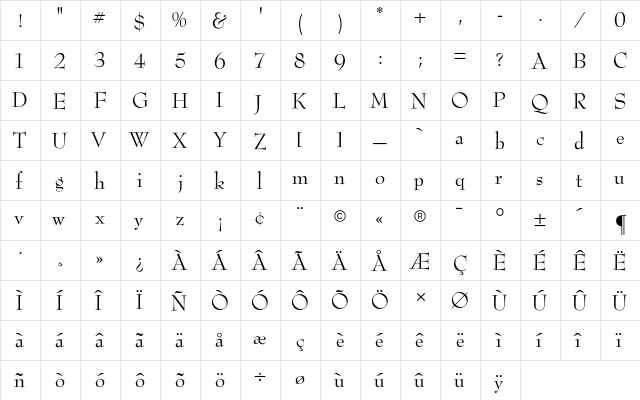
Bernhard Modern CG Roman Regular
Design Context for Bernhard Modern CG Roman Typeface
Bernhard Modern CG Roman takes a measured approach to typography — its balanced proportions and neutral character make it a reliable workhorse for both digital and print work.